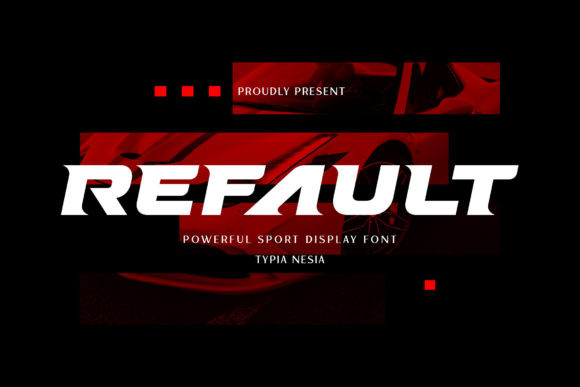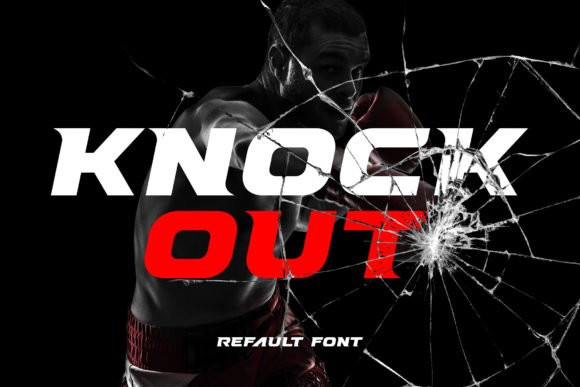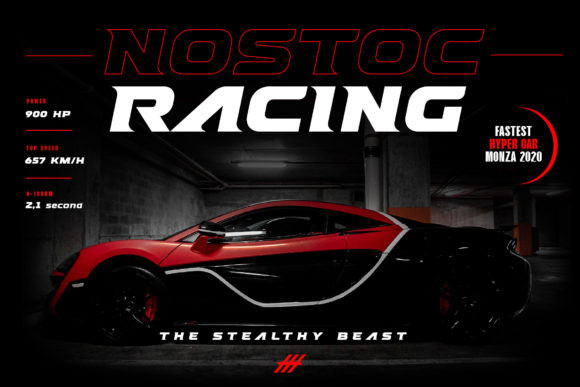
Refault Font
Refault is a cool, bold and sporty looking display font. This font is suitable for designs such as t-shirts, sportswear, logos, advertisements, clothing, and more.